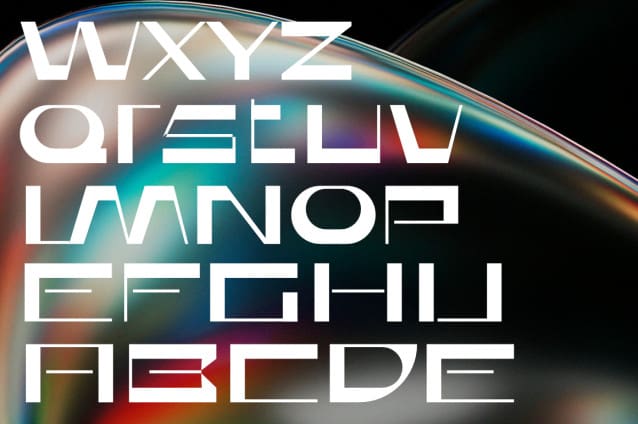
Bedaax Display Font
Bedaax Display Font, perfectly fit for branding, logo, wedding things, greeting cards, fashion, lookbook, marketing promotion, anytime you want to look fancy elegant but still casual.